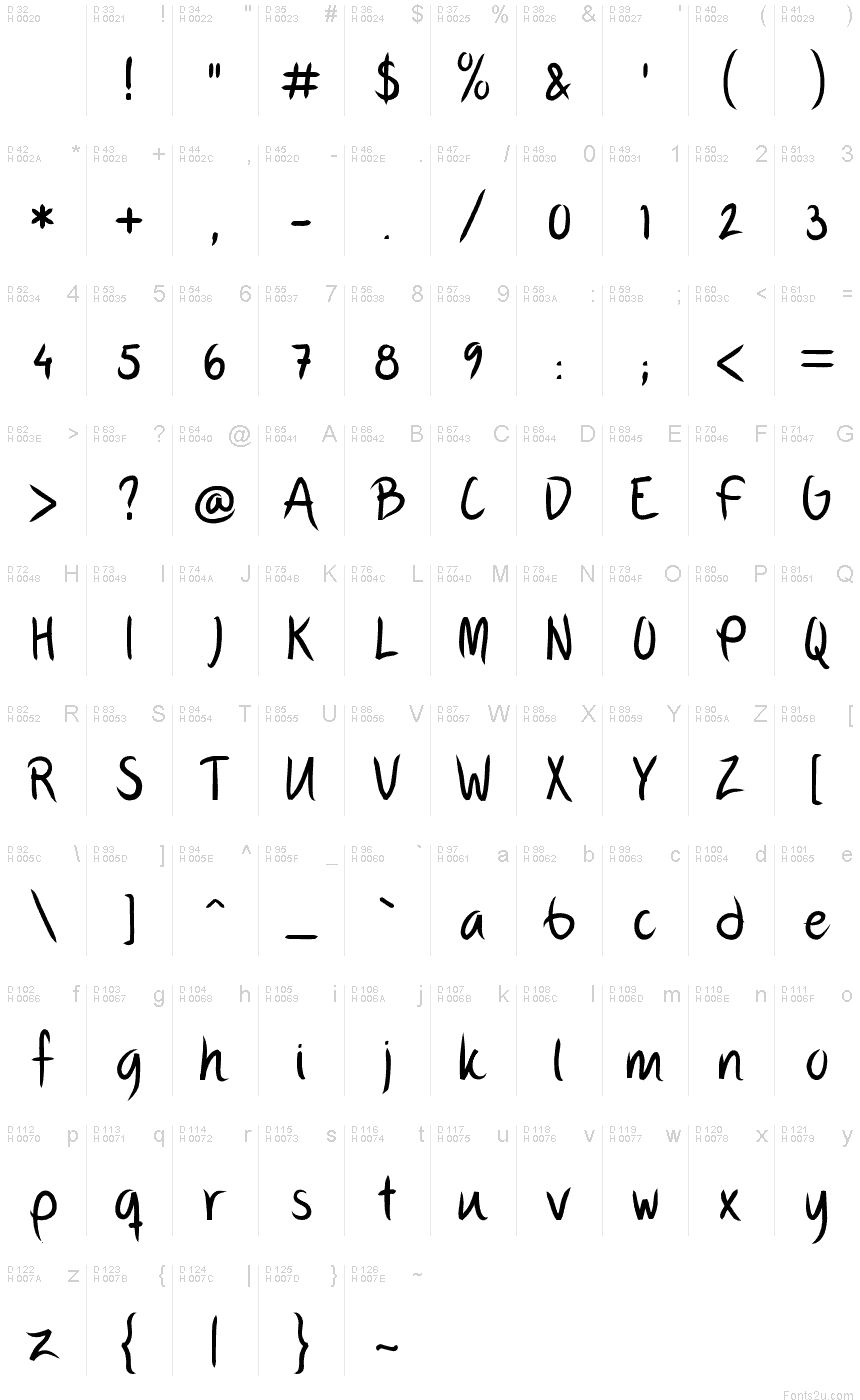
FP third hand
A new font from Piah.se in handwriting style. This time with more brushlike strokes. Readable in longer paragraphs as well as in shorter headings.